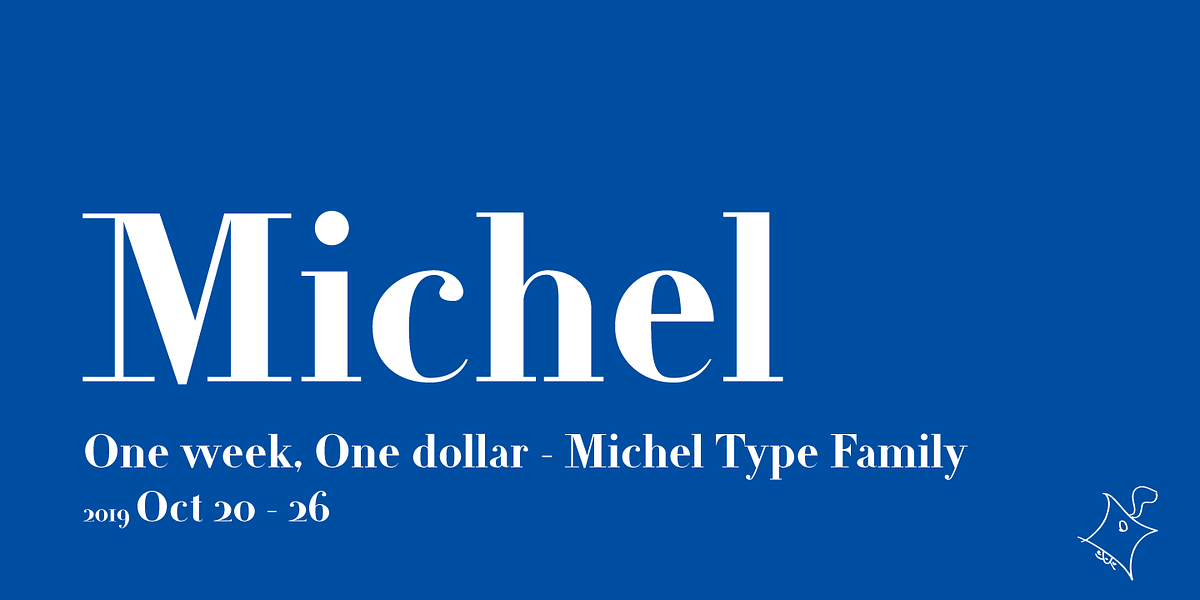
Michel
Michel is a modern serif typeface designed specifically for display use. Its distinguishing feature is the high contrast between thick and thin strokes, which becomes particularly noticeable when used at larger sizes. This makes it well-suited for headlines and branding applications.